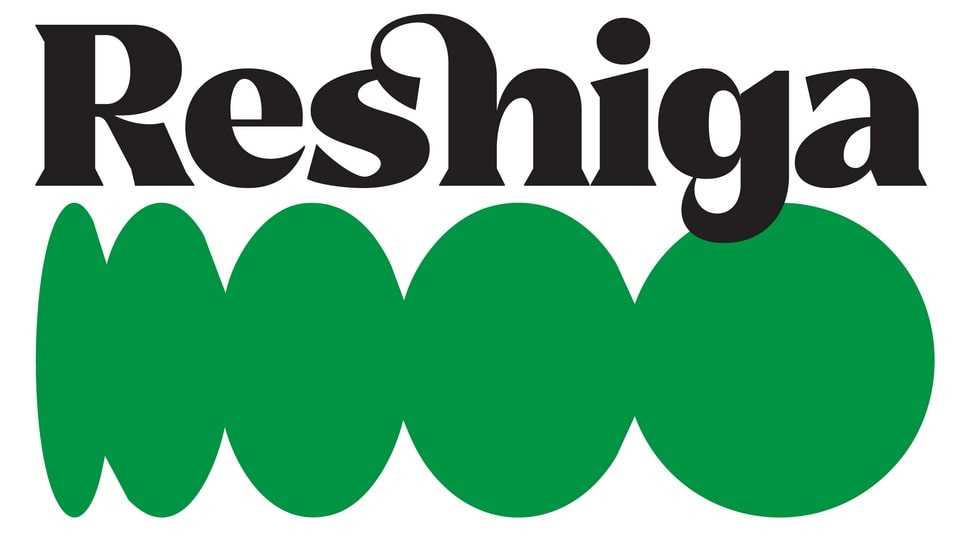
Download Reshiga font, a versatile display serif typeface that works beautifully in both modern and classic styles with its bold and striking appearance.